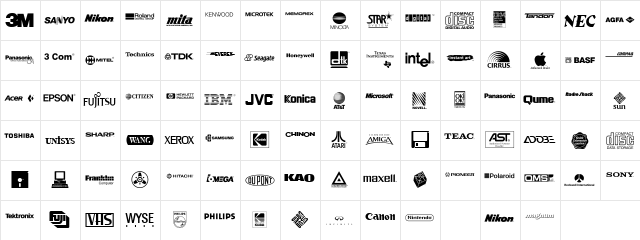
Electronics Regular
Design Context for Electronics Typeface
Electronics is a composed and adaptable typeface that performs quietly and consistently across a wide range of design contexts.